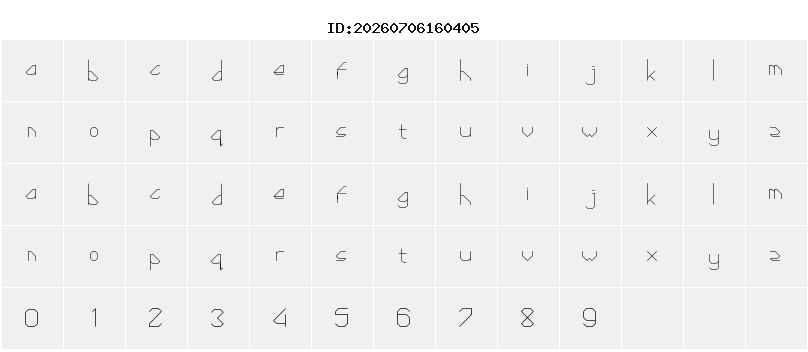
• Font Name: Diamond Cut
• Designer: Yanto Purnomo
About Diamond Cut.ttf
Diamond Cut.ttf is a modern, elegant sans-serif font designed for ultimate readability and visual harmony. Perfect for branding, headlines, web design, and print materials.